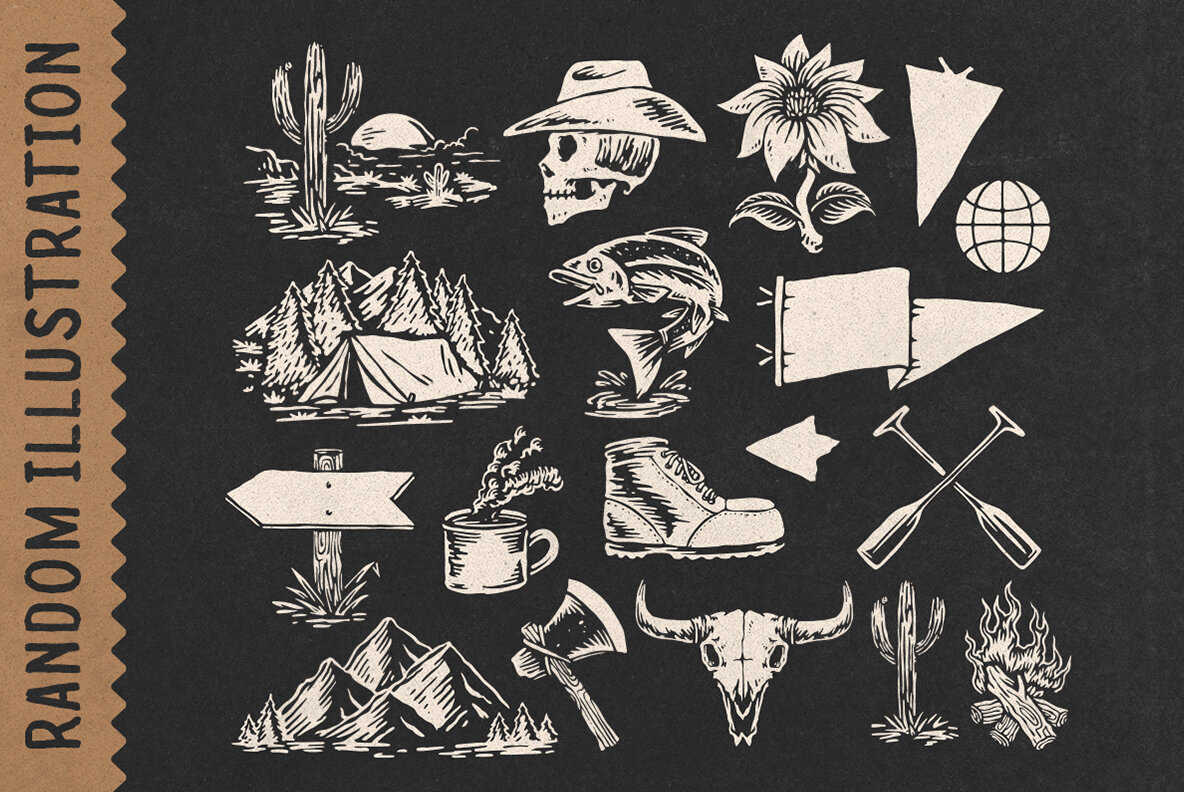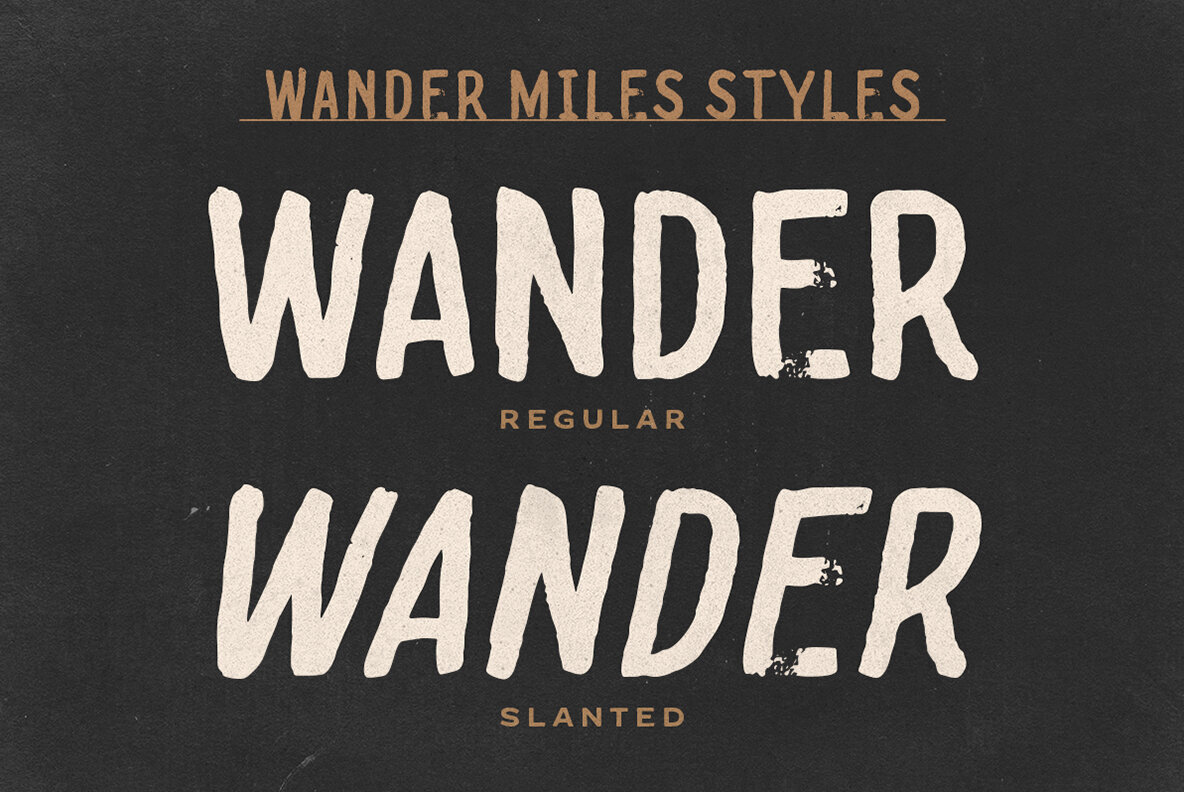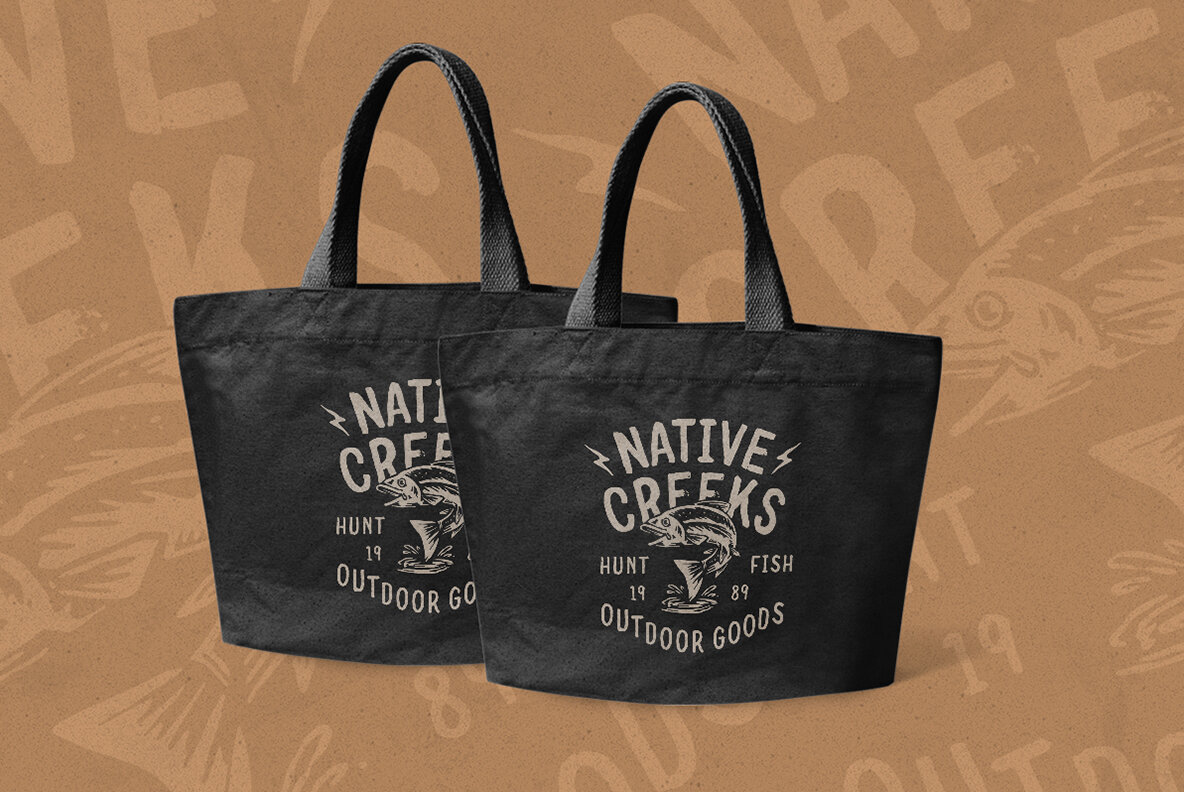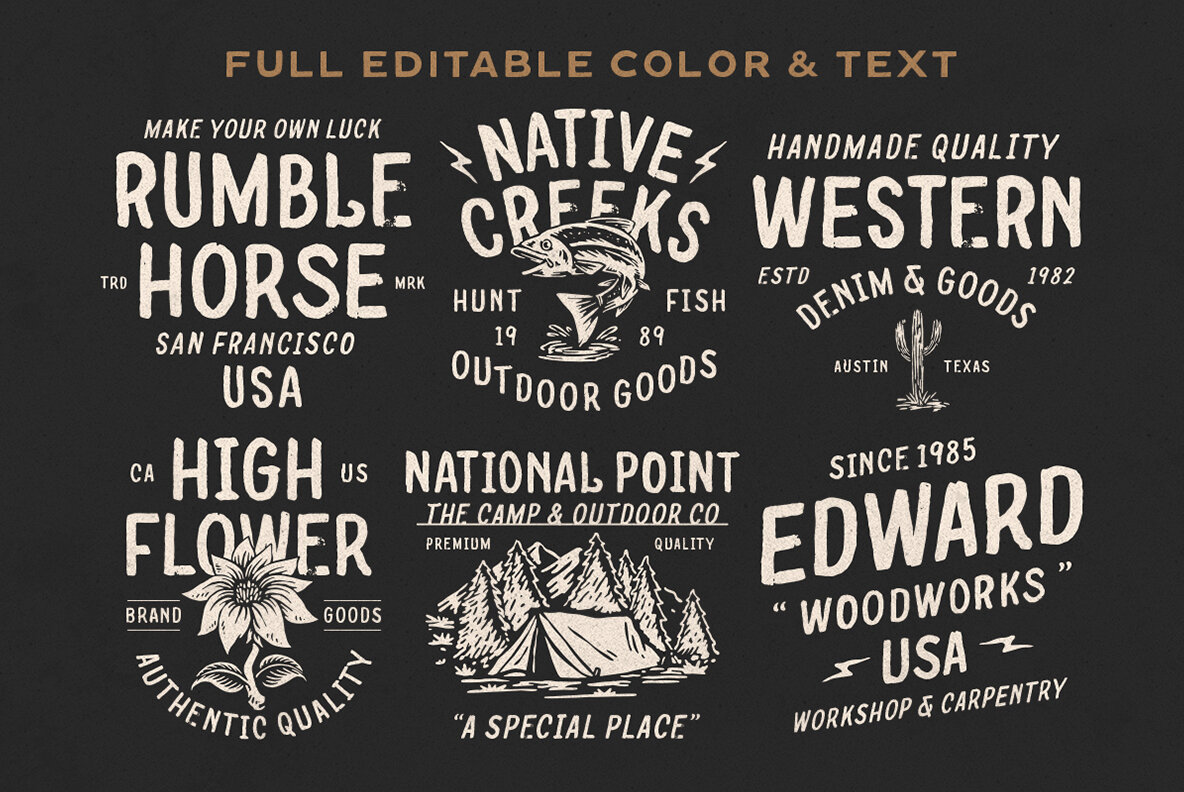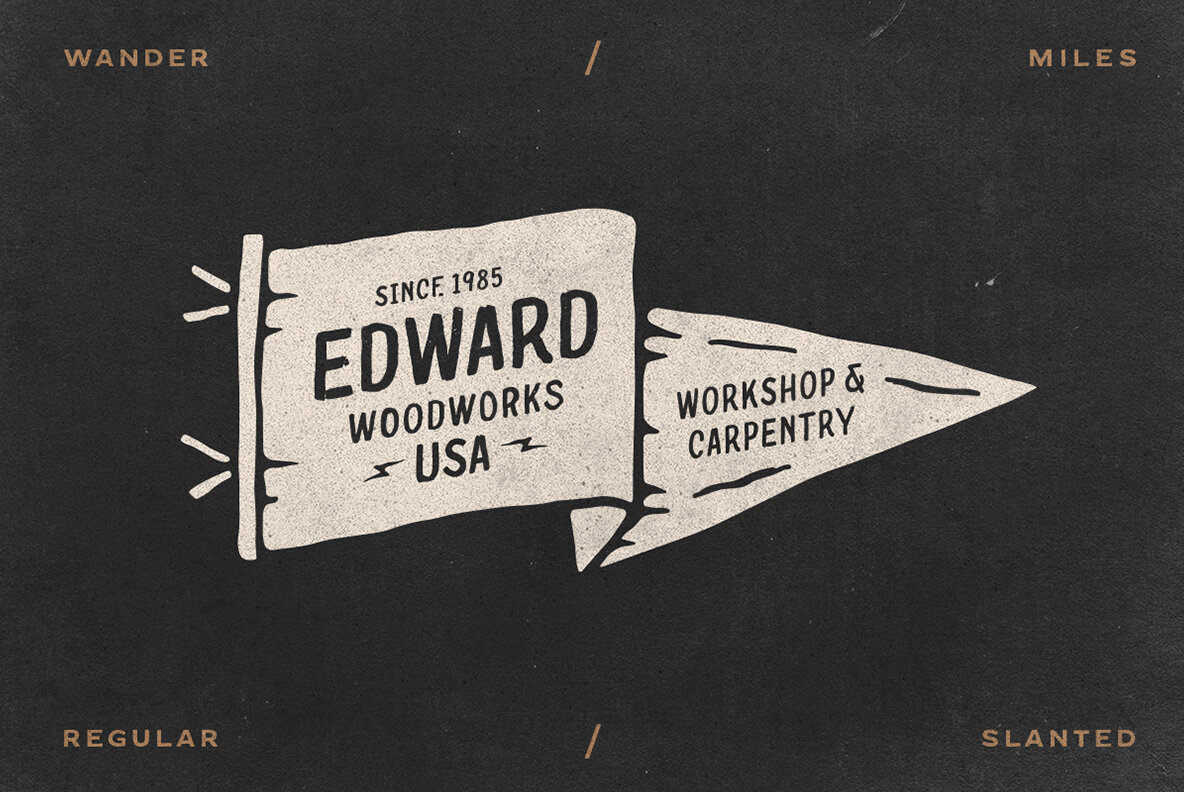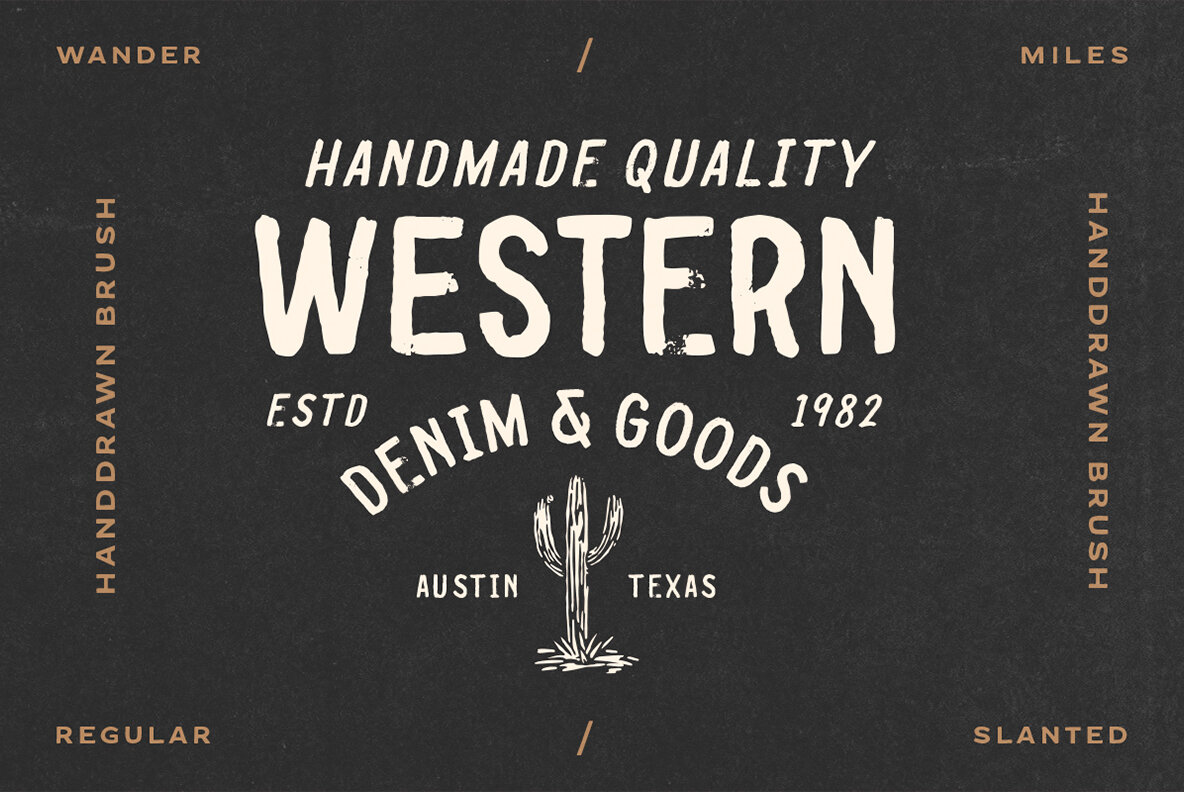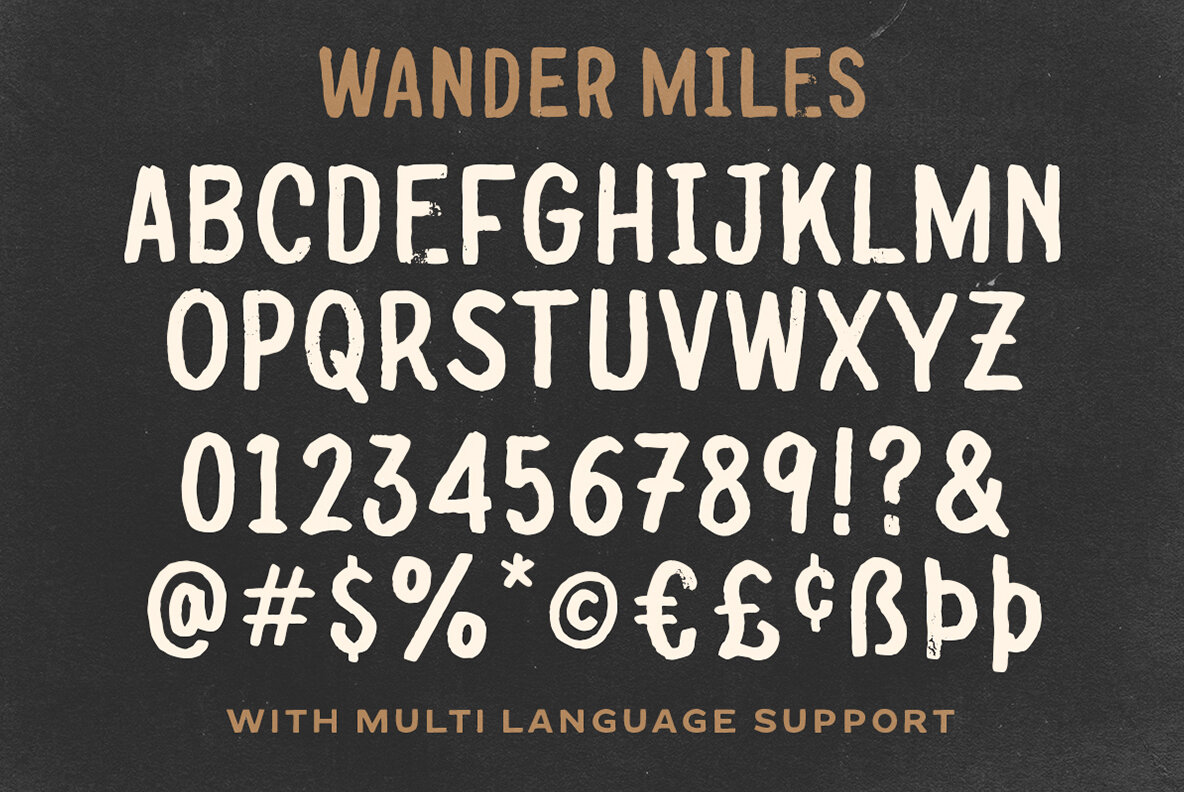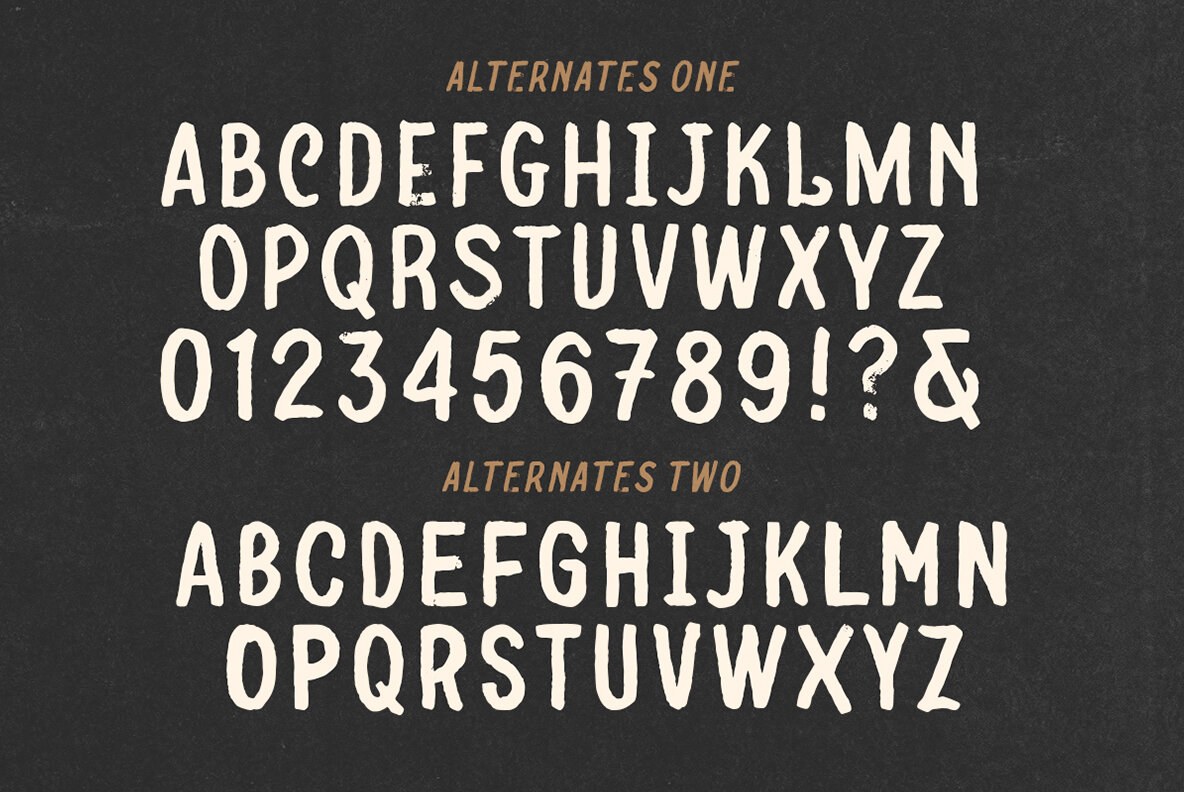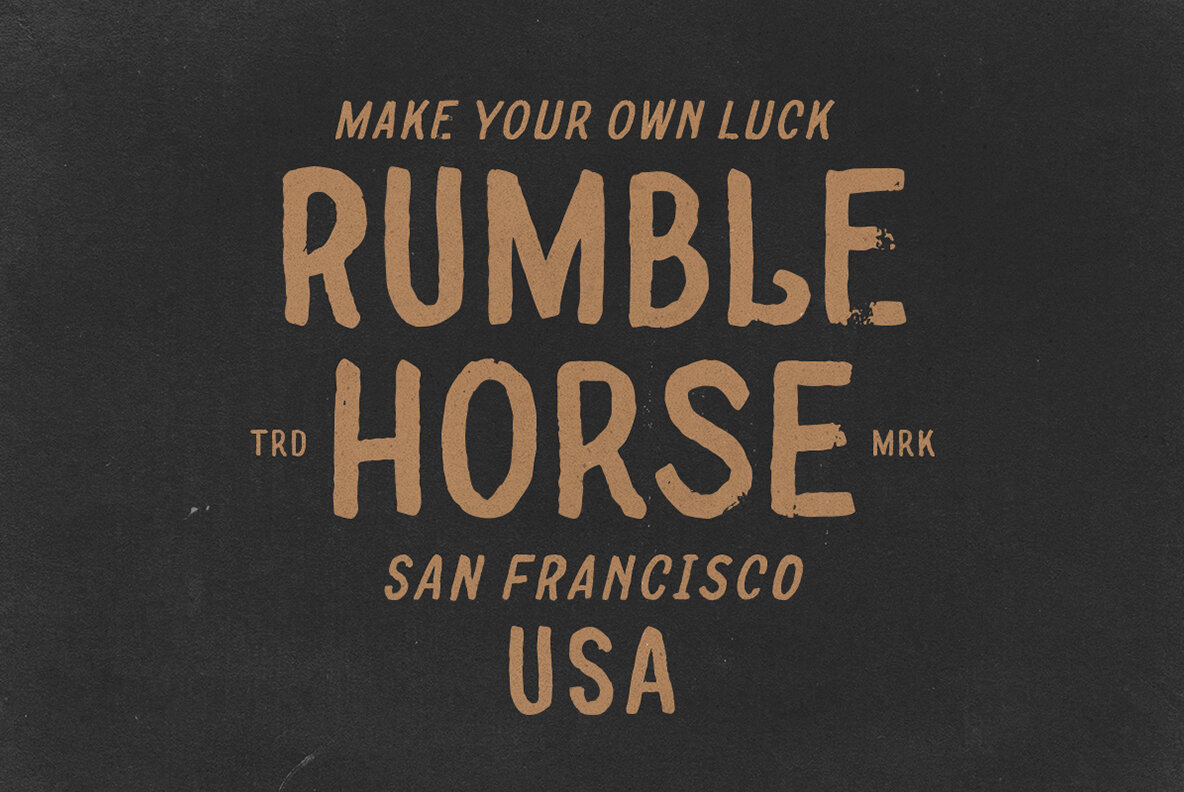
Wander Miles Font
Wander Miles Regular
Wander Miles Dingbats
Wander Miles Slanted
Be drawn into the spirit of adventure and discovery with Wander Miles, a handcrafted sans serif font from the creative minds at Ironbird Creative. Embodied with natural charm and an organic authenticity, Wander Miles encapsulates a feeling of wild, uninhibited freedom, making it an ideal typographical tool for projects that require an outburst of creative liberty and genuine expression. This unique font deeply resonates with graphic designers seeking a touch of exploration and curiosity in their designs. Wander Miles goes beyond mere aesthetics, offering a functional versatility that can seamlessly adapt to any design context. It infuses marketing campaigns with a unique and compelling narrative while still alignifying with the overarching corporate identity. It's not just a font; it's a design philosophy that believes in capturing and conveying the essence of adventure. Notable Features:Embark On A Journey Of Creativity With Wander Miles Font, A New Graphic Pinnacle By Ironbird Creative